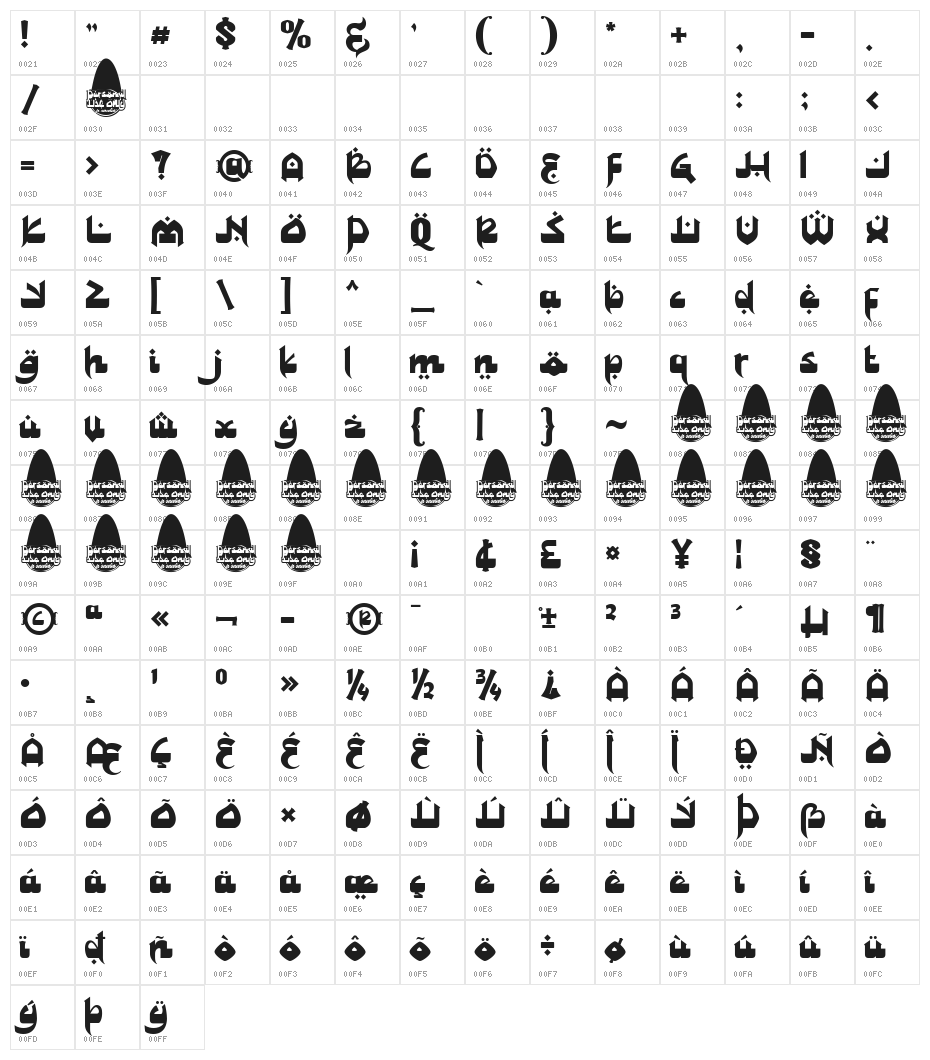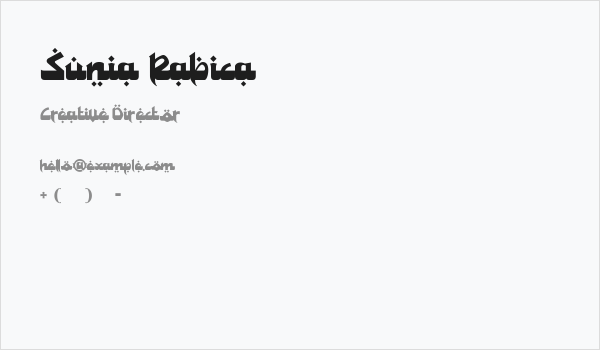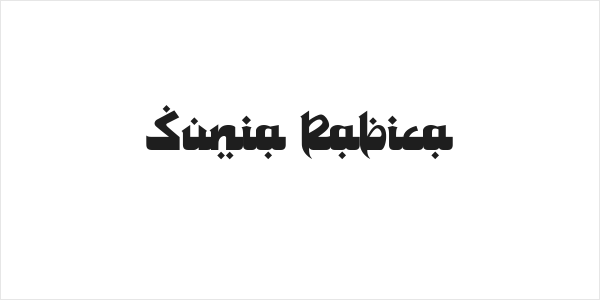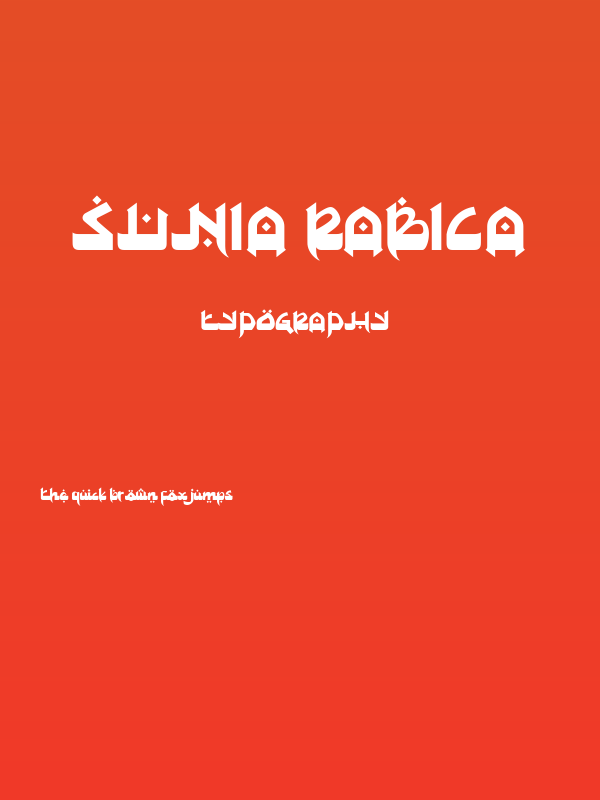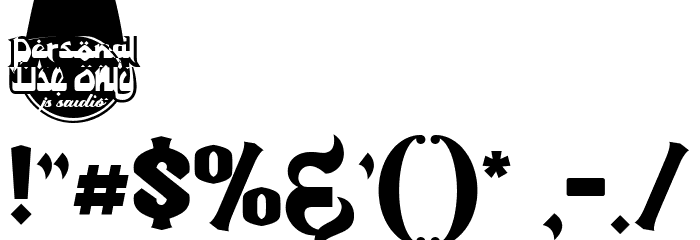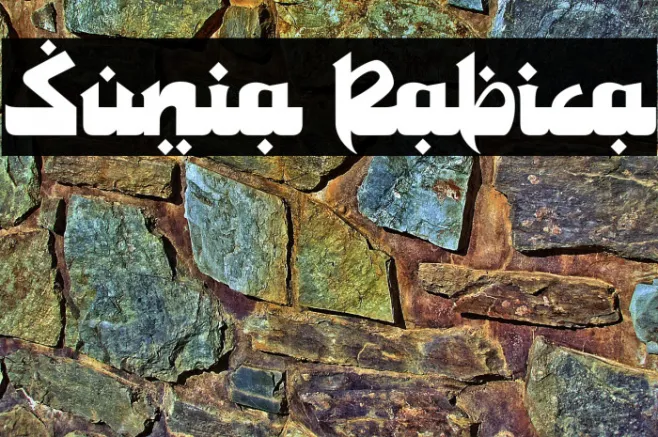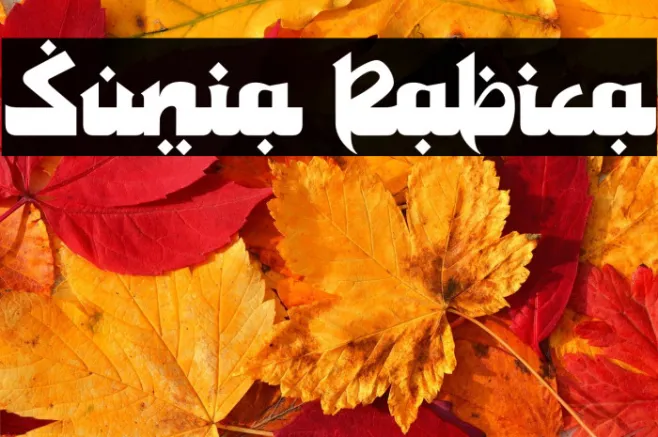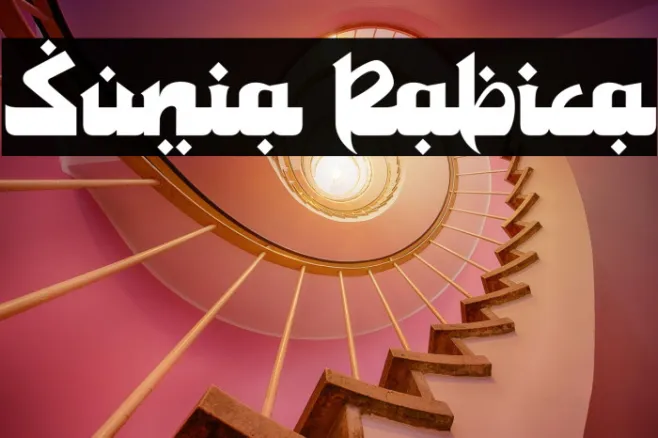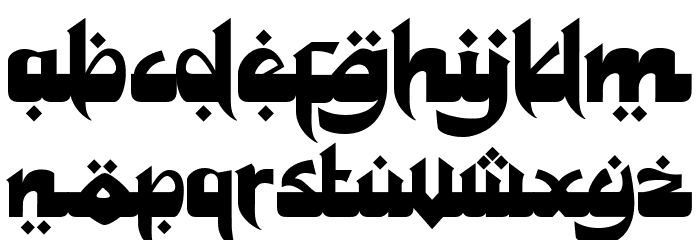
Sunia Rabica Font
Sunia Rabica Description
This font features a bold and striking design with a strong geometric influence. The characters are crafted with thick strokes and sharp angles, giving it a modern and assertive appearance. The uppercase letters are particularly distinctive, with unique shapes that create a sense of movement and energy. The lowercase letters maintain the boldness of the uppercase, with a slightly more rounded approach. The numerals and special characters are consistent with the overall style, ensuring a cohesive look across all text. This font is ideal for making a statement and drawing attention.
| Proposed Projects | Ideal for branding, posters, headlines, and any project requiring a bold statement. |